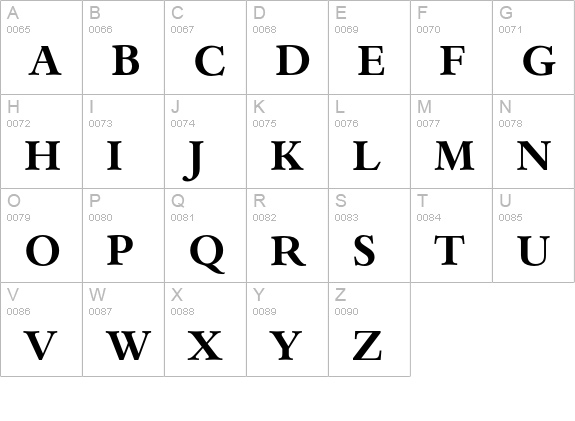
Bernstein-DemiBold is a sub-bold, structured variant in the Bernstein typeface family \xE2\x80\x94 well suited to sub-headlines and emphasised passages.
The Bernstein-DemiBold font is a striking and sophisticated typeface that exudes a sense of modernity and professionalism. With its bold and commanding presence, this font is perfect for creating eye-catching headlines, titles, and branding materials. The strong and clean lines of Bernstein-DemiBold make it highly readable and impactful, making it a popular choice for both print and digital designs. What sets Bernstein-DemiBold apart is not only its aesthetic appeal but also the fact that it is available for free download at FontsMarket.com. This means that you can easily access and use this premium font in your projects without any cost, adding value and style to your designs. Embrace the versatility and elegance of Bernstein-DemiBold and elevate your typography game today.